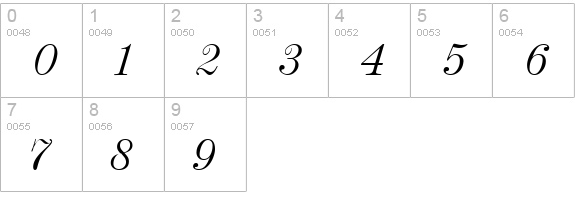
Andrich Italic Font Details
Andrich Italic is a distinctive, italic variant in the Andrich typeface family \xE2\x80\x94 well suited to design and typography projects.
Andrich Italic font exudes elegance and sophistication with its beautifully crafted letterforms and delicate curves. This italic typeface brings a touch of refinement to any design project, whether it be for branding, invitations, or editorial layouts. The slanted style of Andrich Italic adds a dynamic and modern twist to traditional typography, making it a versatile choice for both print and digital applications. The best part? Andrich Italic font is available for free download at FontsMarket.com, where you can easily access this stunning typeface to elevate your creative projects. Embrace the timeless beauty of Andrich Italic and bring a touch of class to your designs today.